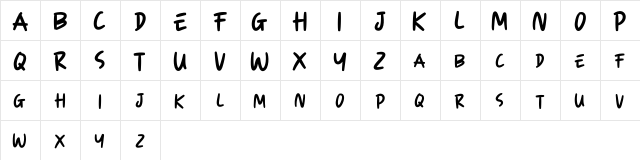
KIDEPARK Regular Font Preview
KIDEPARK Regular
KIDEPARK Regular Font Details
Design Context for KIDEPARK Typeface
KIDEPARK is a composed and adaptable typeface that performs quietly and consistently across a wide range of design contexts.
Pro Tip: Use KIDEPARK in both headline and body roles to test its range before committing to a single application.